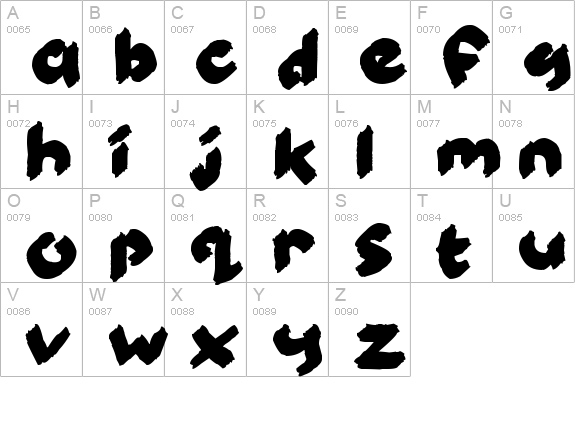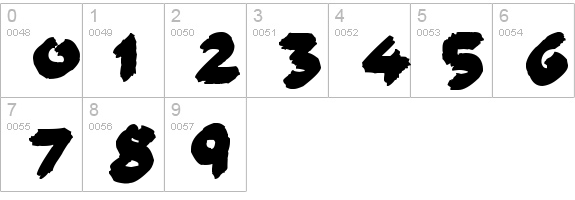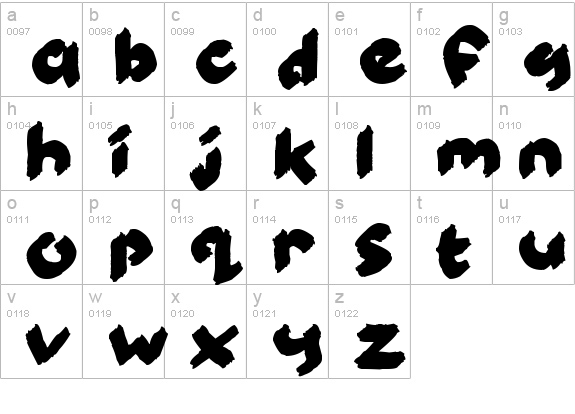
Kiddy Paints is a free for personal use font in the Script > Brush category, designed by Darrell Flood. It has been downloaded 40 times and is available for Windows, Mac and Linux.
Kiddy Paints font is a whimsical and playful typeface that brings a sense of childlike wonder to any project. With its rounded edges and colorful appearance, this font is perfect for adding a touch of fun and creativity to your designs. Whether you're working on a children's book, a birthday invitation, or a school project, Kiddy Paints font is sure to bring a smile to your face.